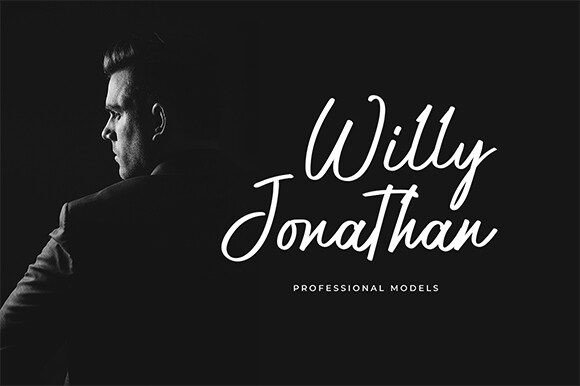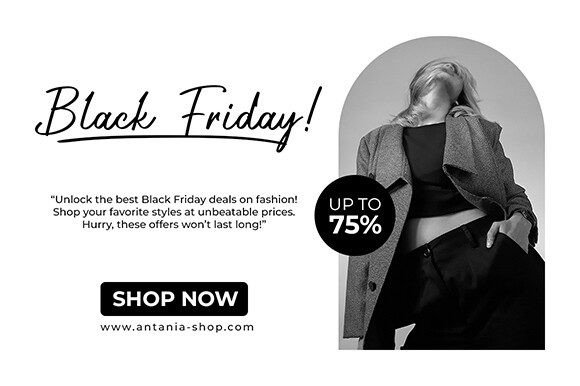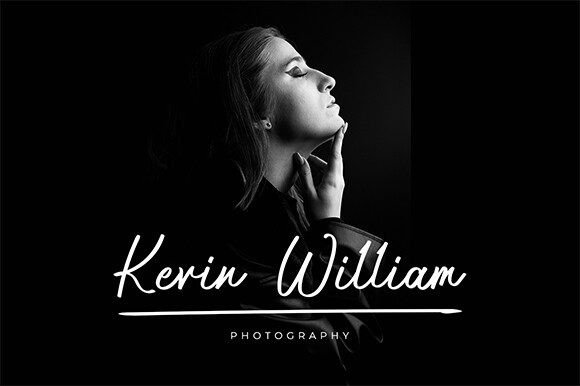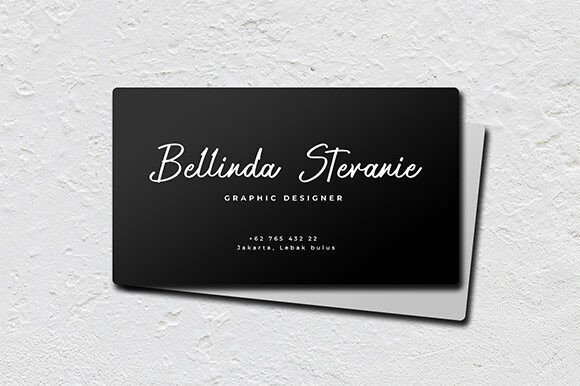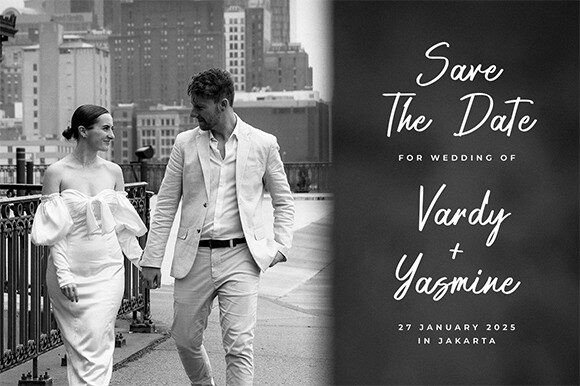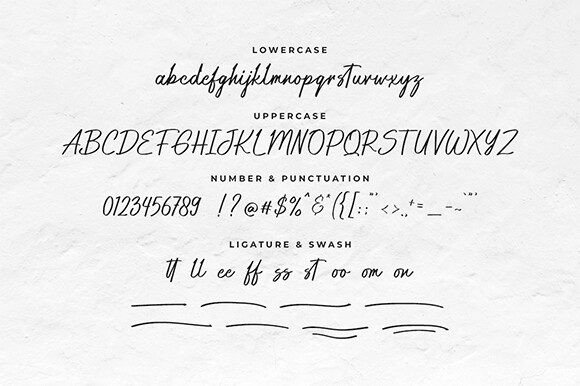
Introduction to Luminance Font Font
Fonts play a crucial role in design, and the Luminance Font font is a typeface that brings both character and versatility to any project. Whether you’re working on a branding project, a website, or a print design, the Luminance Font font offers a unique style that can elevate your work.
Luminance is a sleek and stylish handwritten font that exudes elegance and cool sophistication.
Perfect for adding a touch of class to your designs .
Key Features of Luminance Font Font
Why Choose Luminance Font Font?
The Luminance Font font is more than just a typeface – it’s a design tool that helps you communicate your message with style and clarity. Its unique character set and versatile design make it suitable for a wide range of applications, from elegant invitations to bold headlines.
With its carefully crafted letterforms and balanced proportions, the Luminance Font font ensures readability and visual appeal across all mediums.
What makes Luminance Font font special?
The Luminance Font font stands out with its unique design, exceptional readability, and versatility across various design applications.